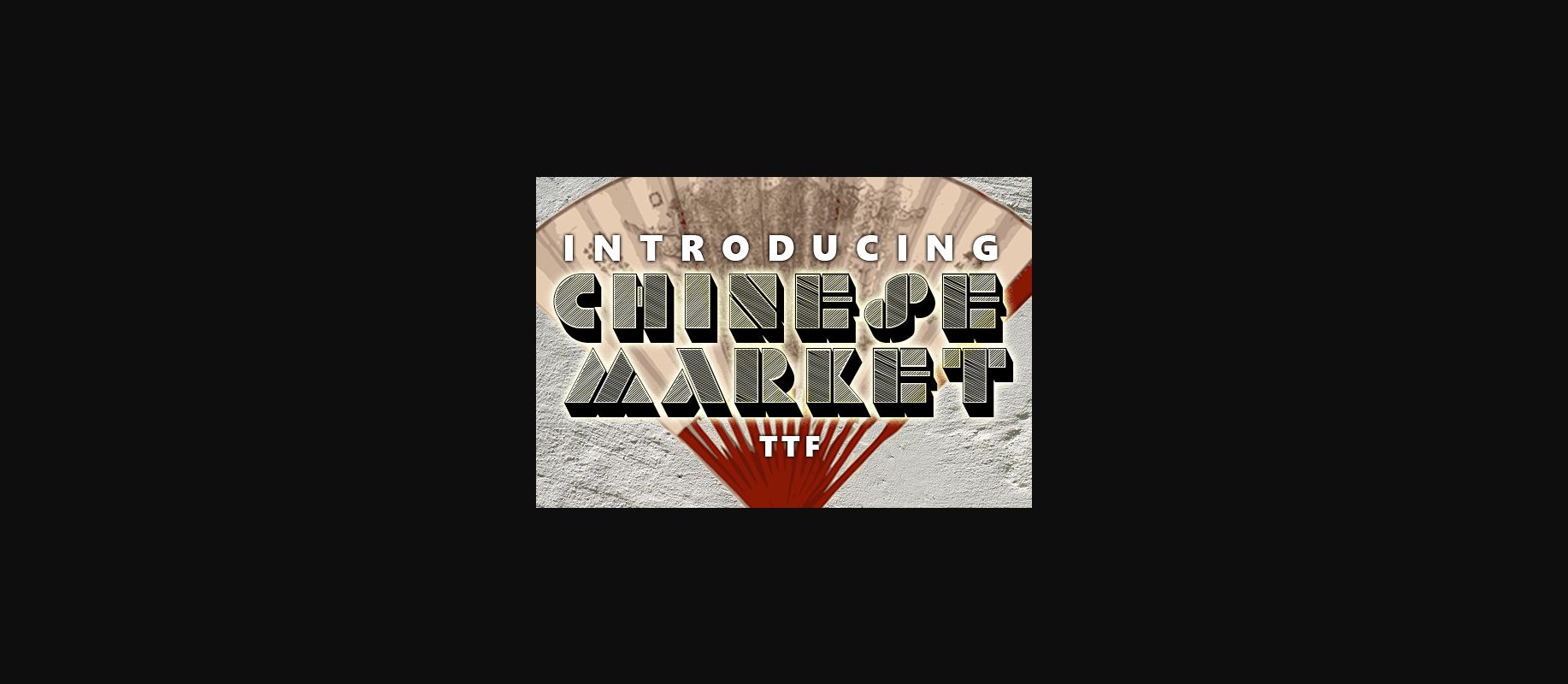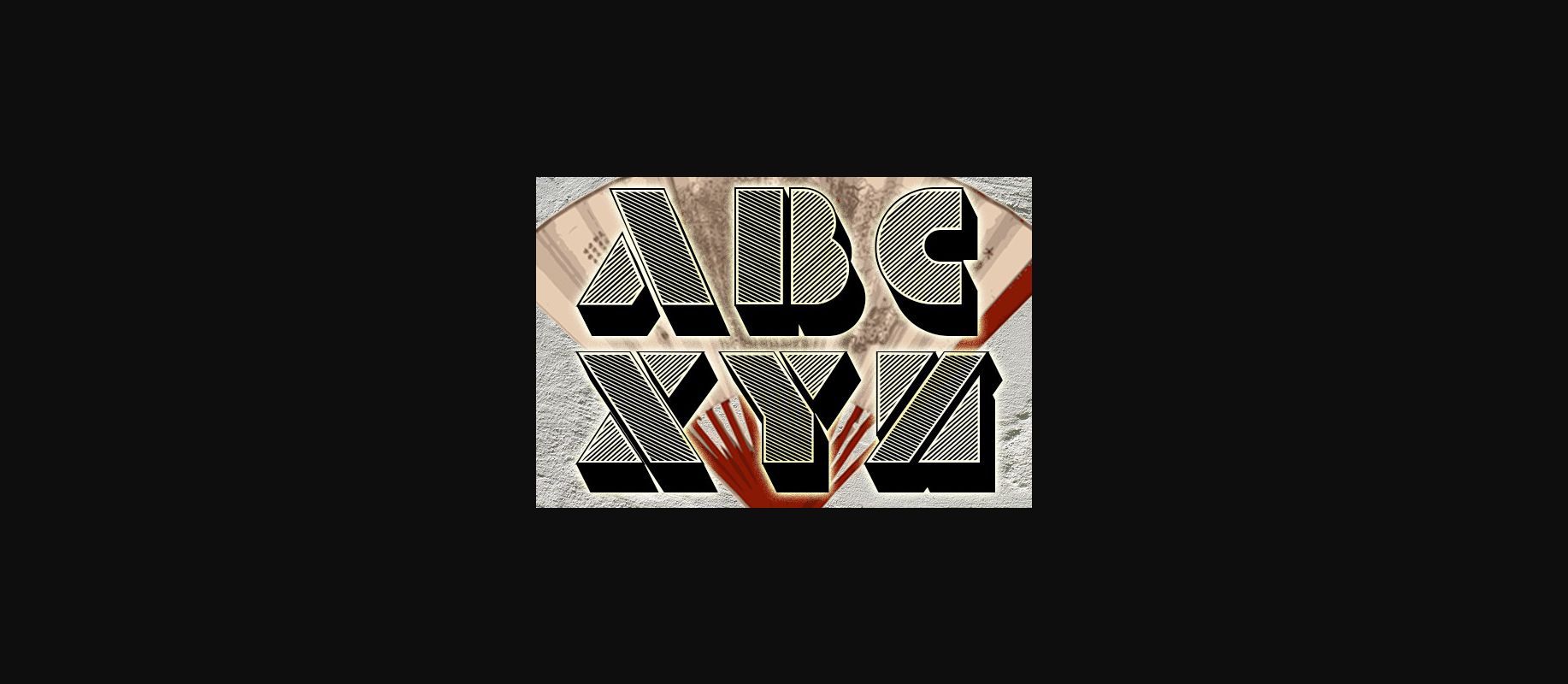
HomeDecorative FontsChinese Market Font Decorative Fonts Chinese Market Font FacebookTwitterPinterestWhatsApp 1 of 4 ... Chinese Market Font Poster 2... Chinese Market Font Poster 3... Chinese Market Font Poster 4... About Chinese Market Font Chinese Market is an awesome 3D typeface. Simple but with a strong visual effect, this font will instantly make your creation more appealing than any others. DOWNLOAD NOW 223 0 People also explored Tourist Village Font Diamond Font Christmas Font Baby Bugga Font Klamoure Font Hugein Font Toolless Font Rhodthink Font Speciality Farmhouse Font Chuline Font Mourena Font Versaced Font TagsChinese Market Font Previous articleVector FontNext articleVolgograd Font LEAVE A REPLY Cancel reply Comment: Please enter your comment! Name:* Please enter your name here Email:* You have entered an incorrect email address! Please enter your email address here Website: Save my name, email, and website in this browser for the next time I comment. Unlock Endless Creativity with the FREE September Clipart Huge Bundle (Valued at $700!) Personal Use Free Special Day Personal Use Free Read more Baby Love Personal Use Free Read more Open Store Personal Use Free Read more Loving You Personal Use Free Read more BLOG Using Fonts in Digital Marketing: Tips to Strengthen Your Brand Identity In the realm of digital marketing, every visual element plays a crucial role in shaping a brand's identity, and fonts are no exception. The... Top 7 Google Fonts Alternatives for Faster and Privacy-Friendly Web Design (2025) Exploring Font Trends Transform Your Website: Elevate Your Typography with 7 Best Web Font Generators